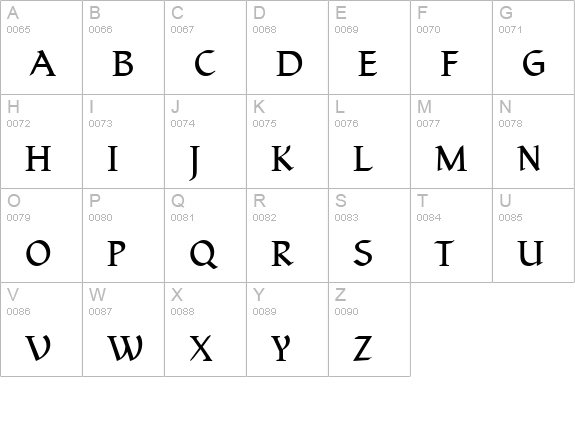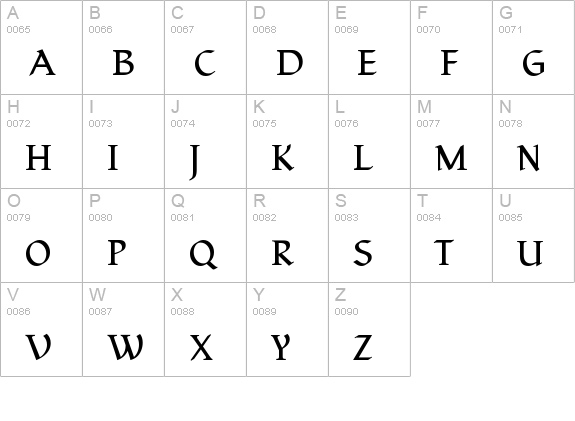
Yngreena Bold Font Details
Yngreena Bold is a strong, high-contrast variant in the Yngreena typeface family \xE2\x80\x94 well suited to headlines, attention-grabbing titles, and strong calls-to-action.
Yngreena Bold font is a sleek and modern typeface that exudes confidence and sophistication. With its bold and striking design, this font is perfect for making a statement in your projects. The strong lines and clean curves of Yngreena Bold will captivate your audience and leave a lasting impression. What's even better is that Yngreena Bold font is completely free to download at FontsMarket.com. Yes, you read that right - you can get your hands on this stunning font without spending a dime. Whether you're working on a branding project, advertising campaign, or any other creative endeavor, Yngreena Bold font will elevate your designs to the next level. Don't miss out on this amazing opportunity to enhance your work with the elegance and power of Yngreena Bold font. Download it for free today at FontsMarket.com and let your creativity shine!